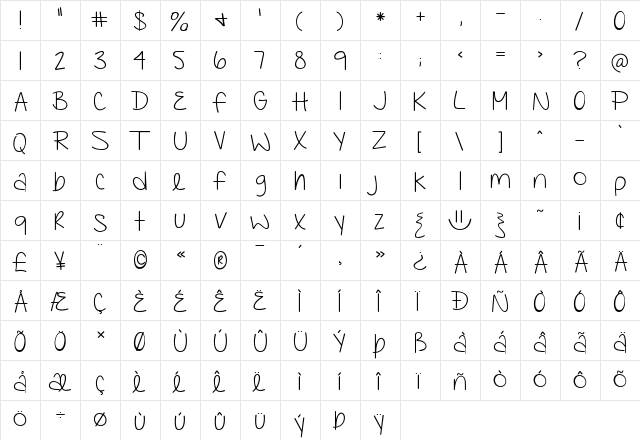
KG Faith Hope and Love Regular
| Foundry | Kimberly Geswein |
| Designer | Kimberly Geswein |
Design Context for KG Faith Hope and Love Typeface
KG Faith Hope and Love is a composed and adaptable typeface that performs quietly and consistently across a wide range of design contexts.
Pro Tip: Pair KG Faith Hope and Love with a font of contrasting weight or personality to build a more expressive typographic hierarchy.